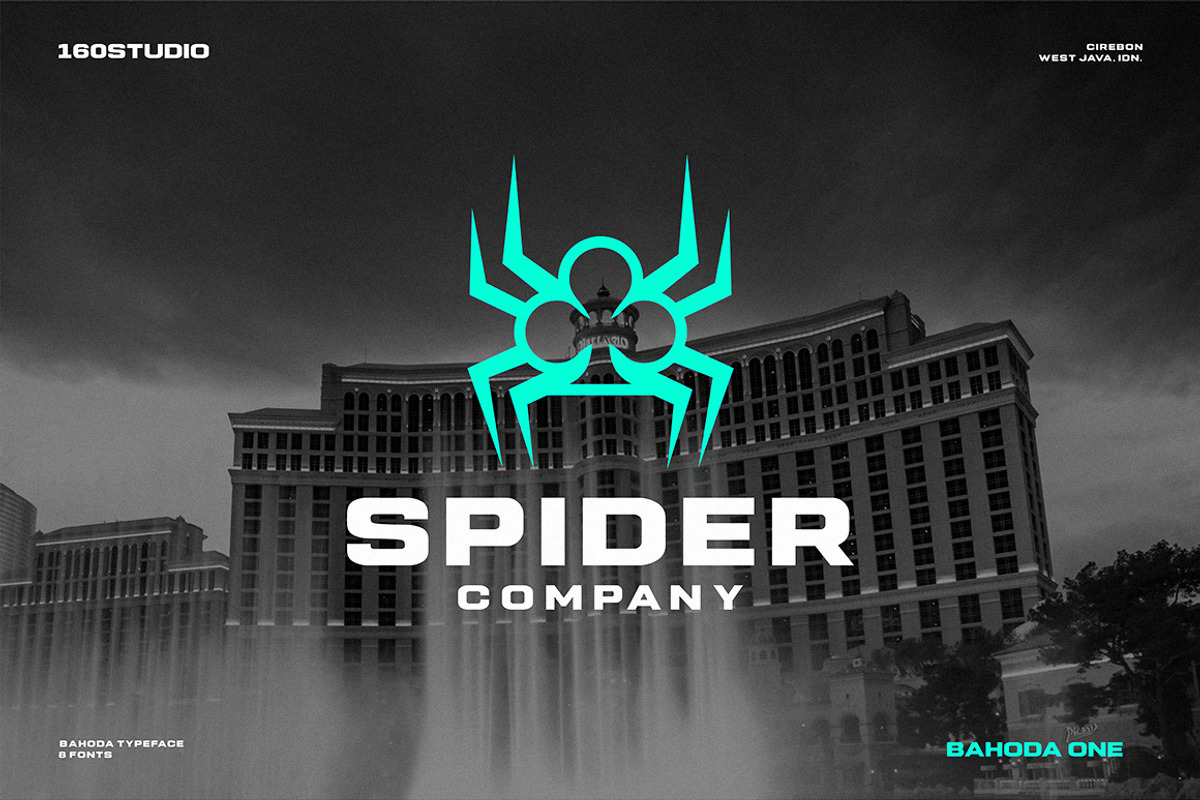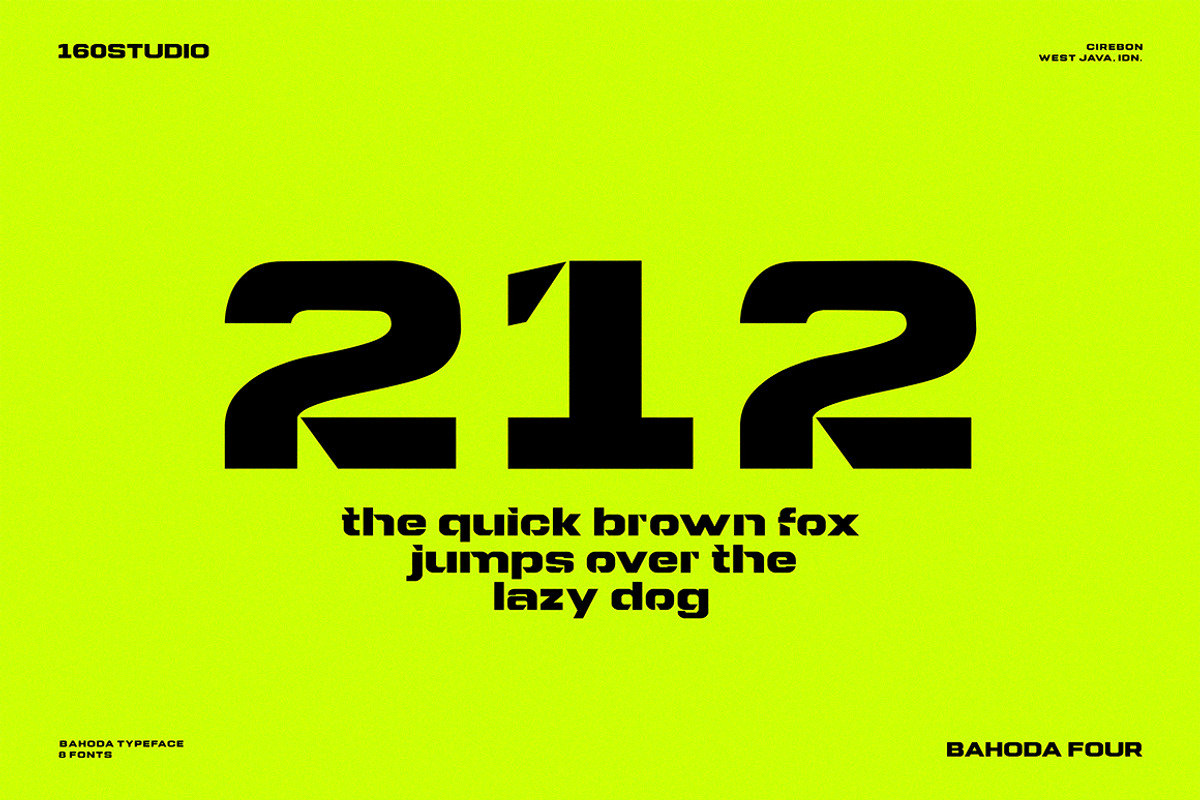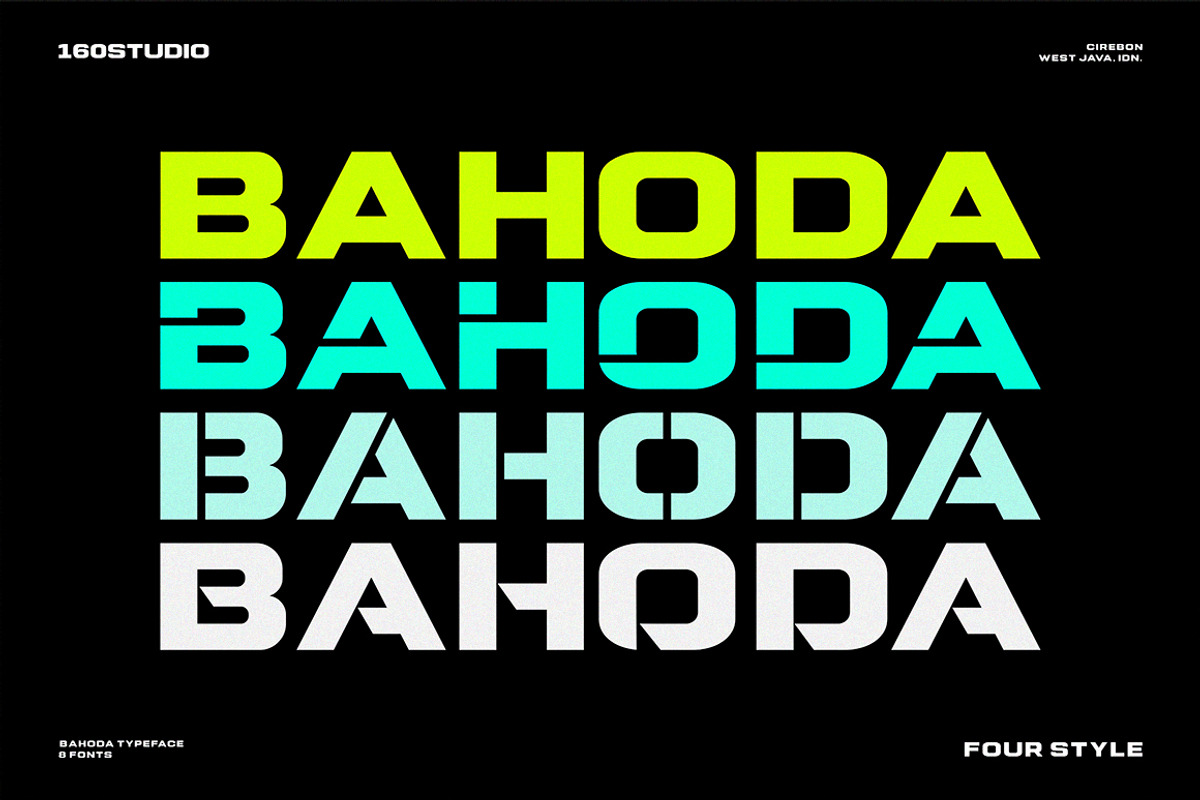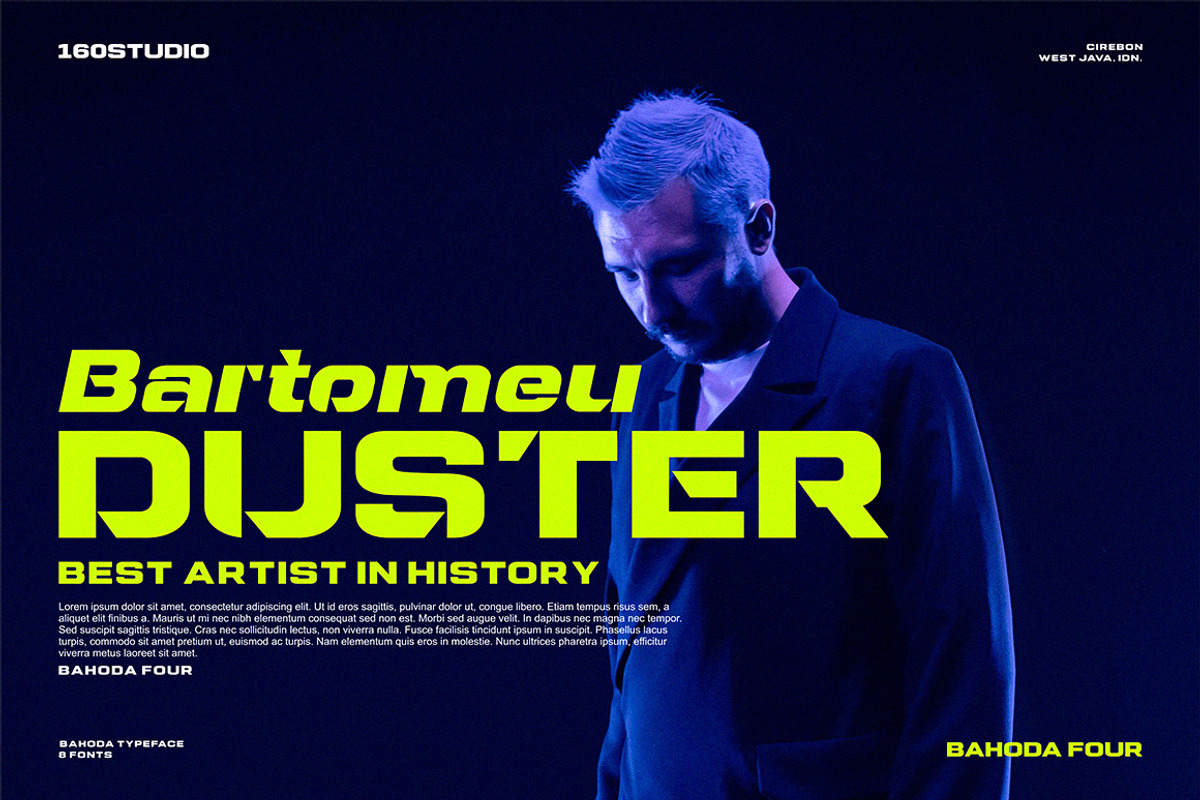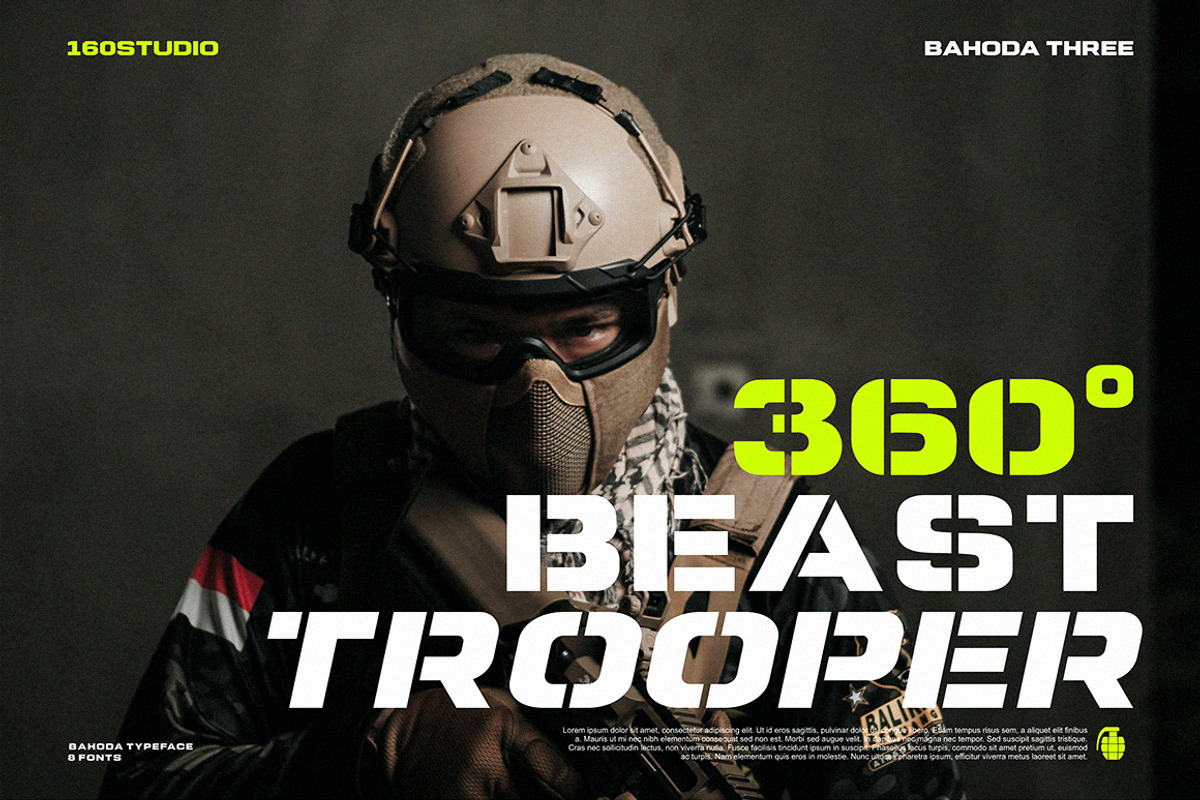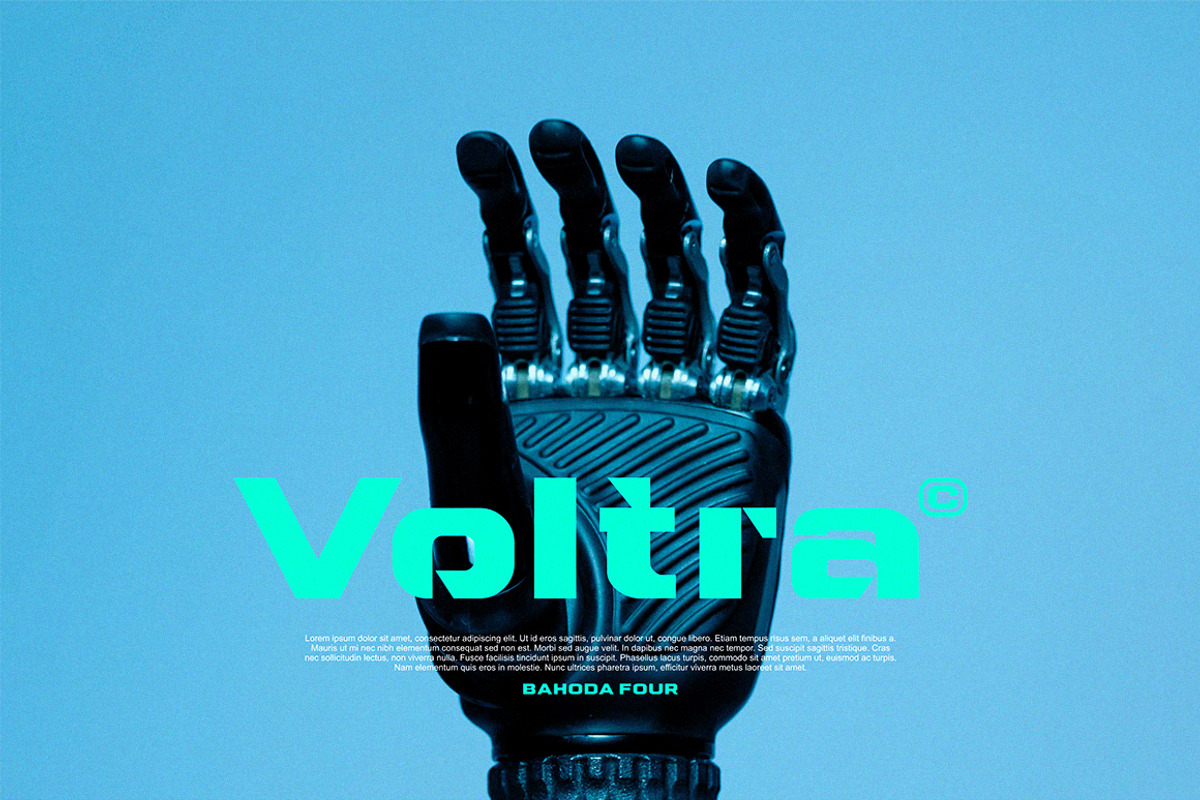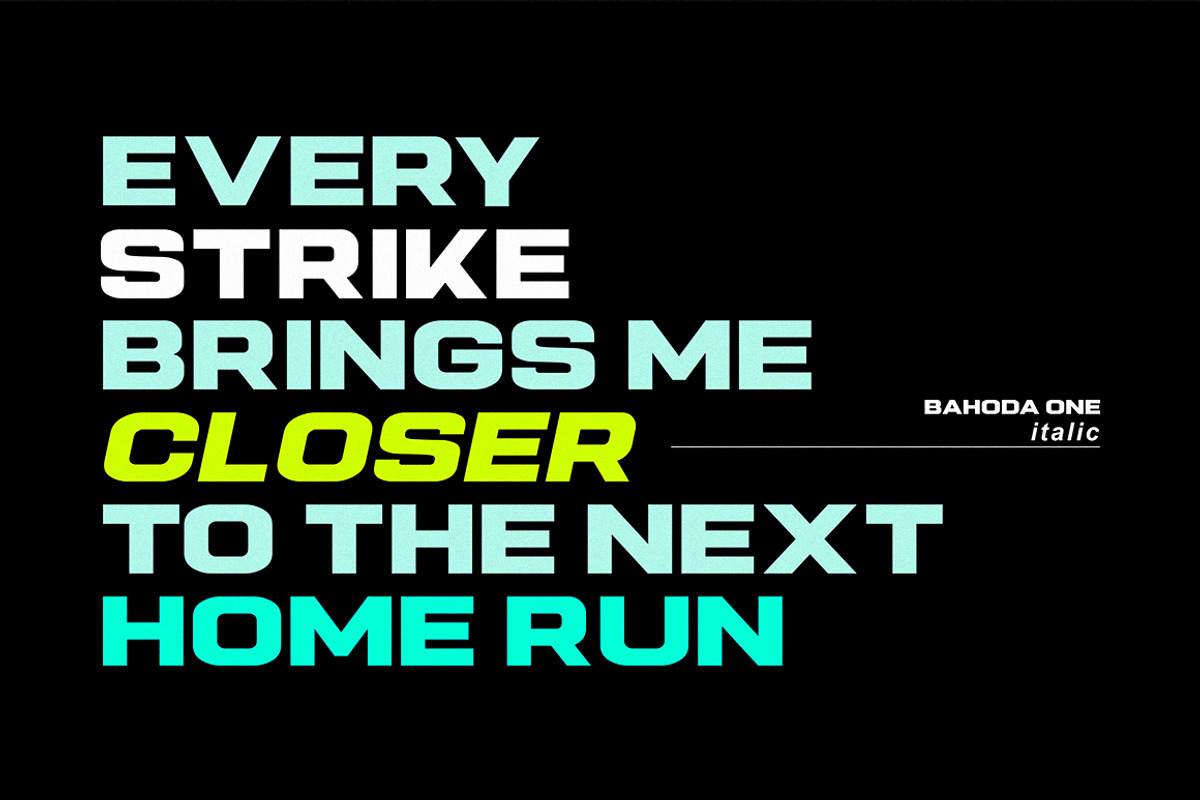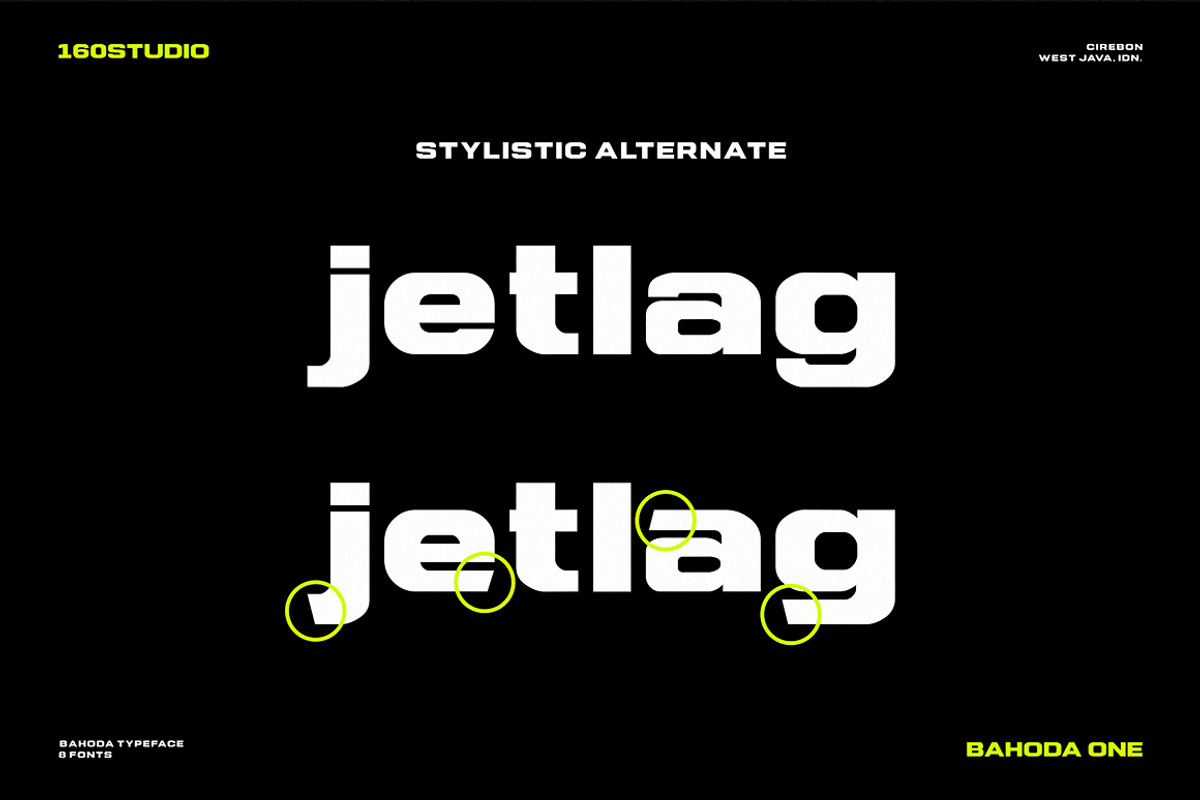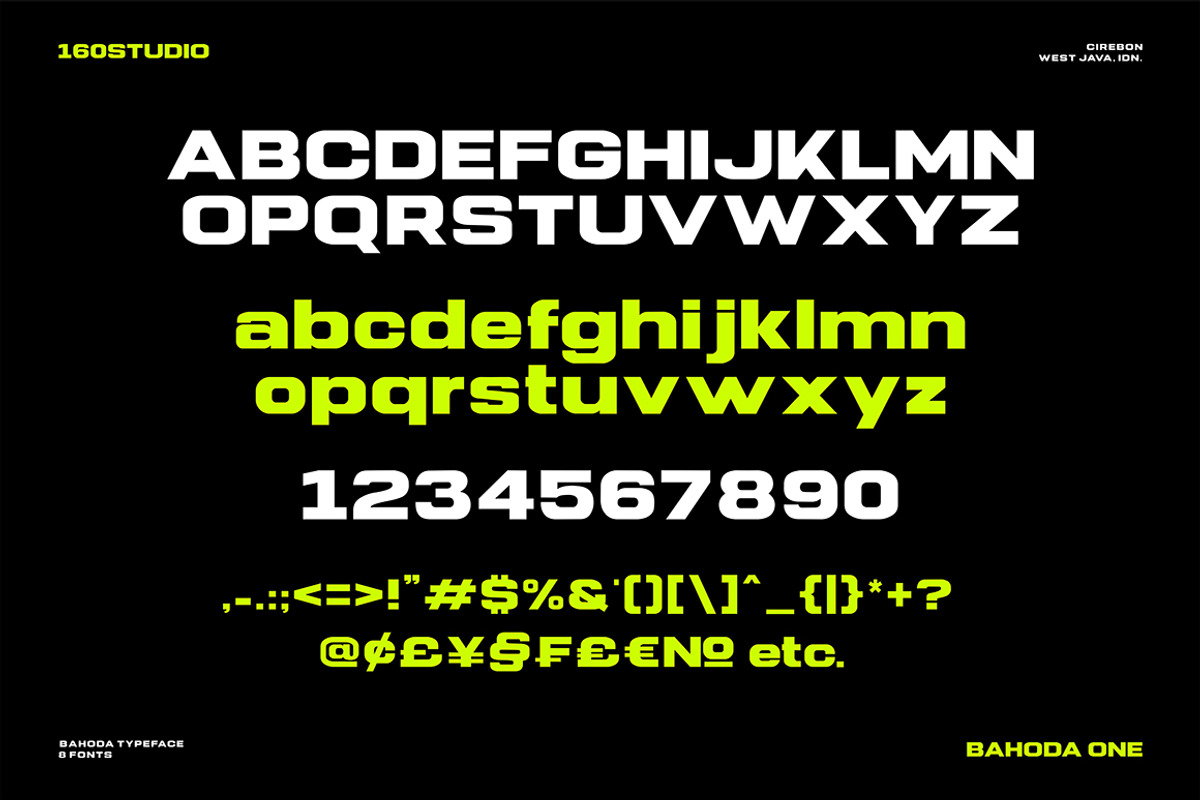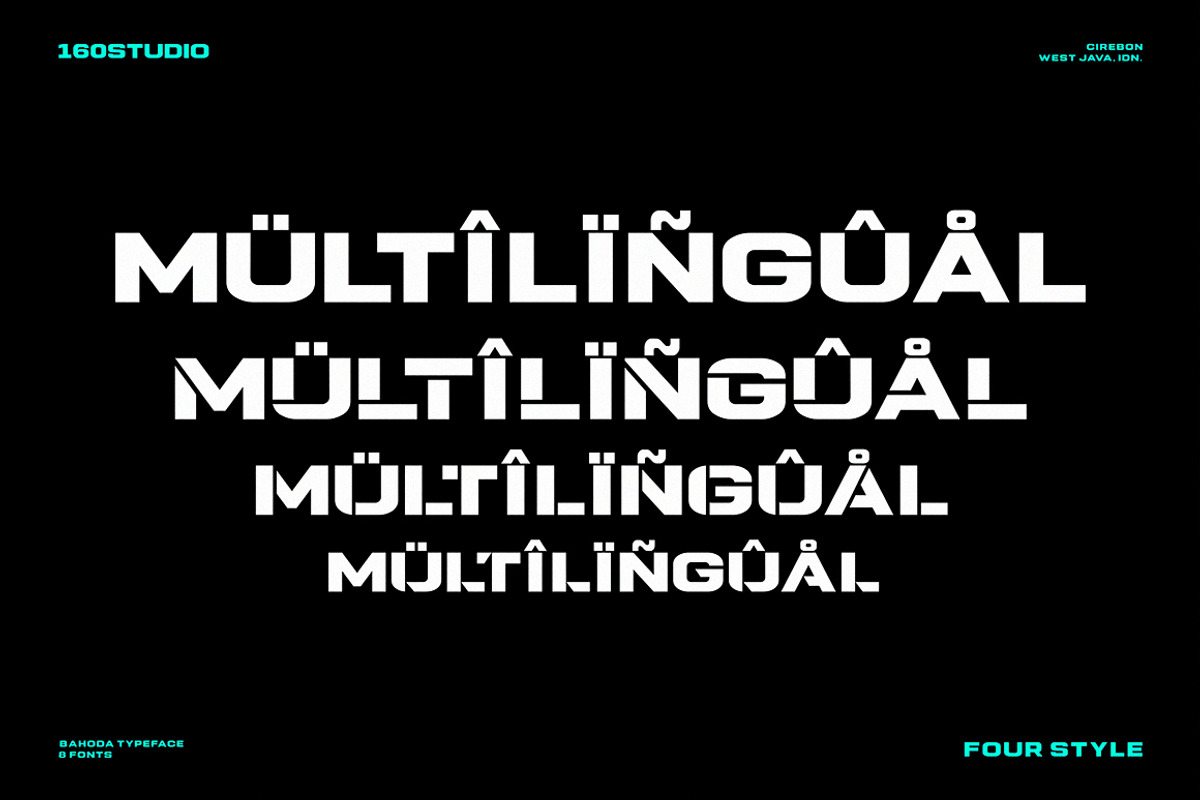
Bahoda Modern Logo Font Collection
Elevate your brand with Bahoda, the ideal font for your logo! Beyond logos, this versatile font adds a cool touch to headers and titles. Choose from 4 distinctive style variations and explore the dynamic slanted version for added flair.
Bahoda Features :
- Italic
- Stylistic Alternate